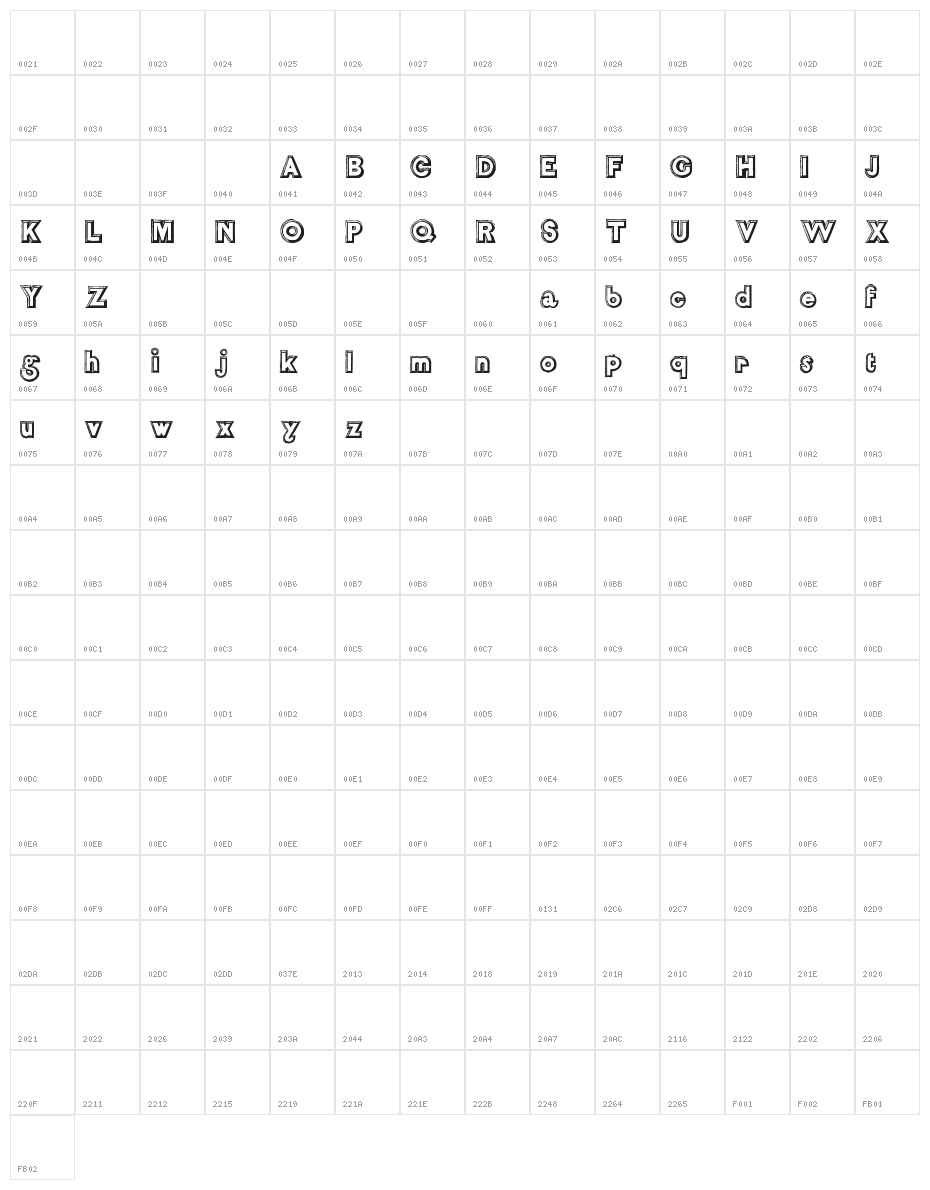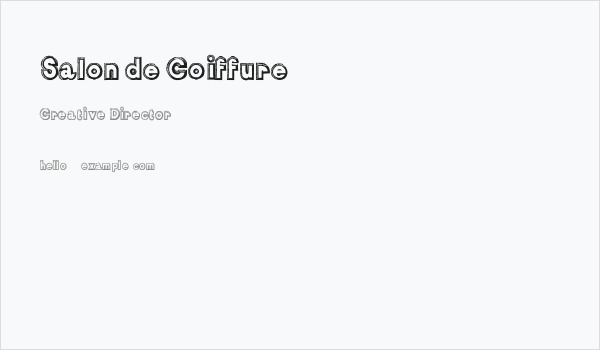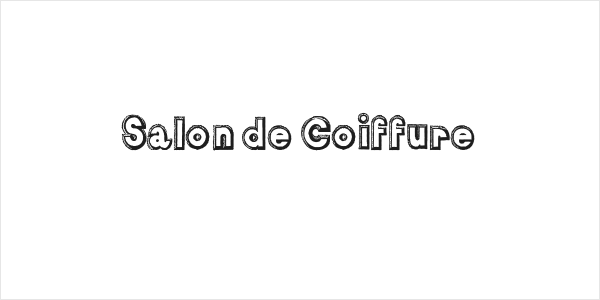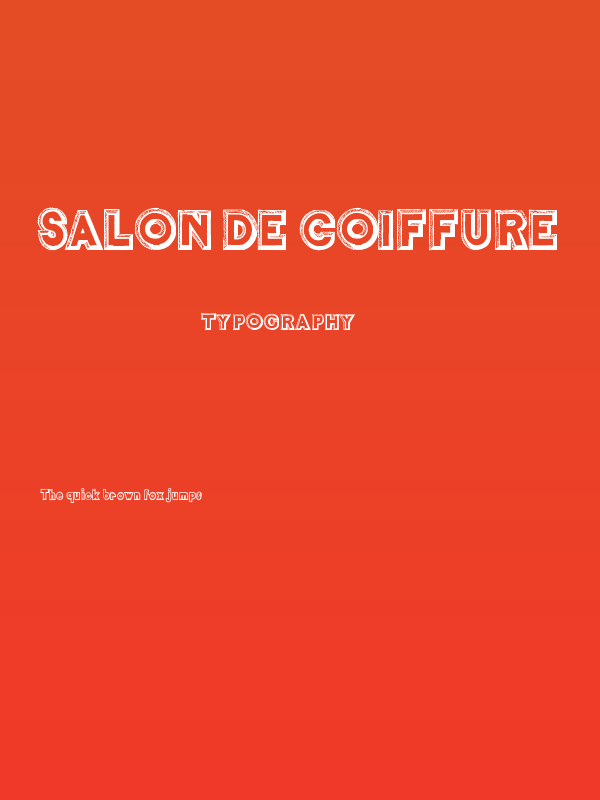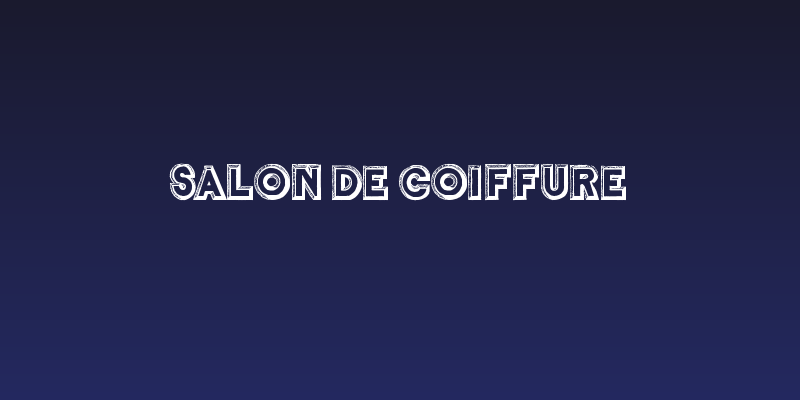
Salon de Coiffure Font
Salon de Coiffure Description
This font features a bold and decorative style with a unique textured outline that adds depth and character to each letter. The uppercase letters are strong and commanding, while the lowercase letters maintain a playful yet structured appearance. The font includes a full set of uppercase and lowercase letters, numbers, and a selection of special characters. Its distinct design is perfect for making a statement, with each character exhibiting a consistent width and a slightly condensed form. The textured outline gives it a vintage feel, reminiscent of classic signage or retro advertisements.
| Proposed Projects | Ideal for retro-themed posters, vintage branding, eye-catching headlines, and creative logo designs. |